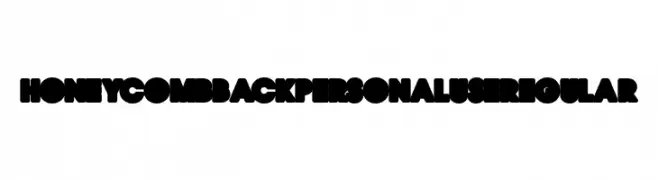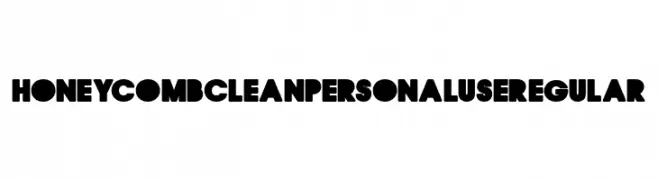
( Fonts by Billy Argel )
A bold, rounded font with a playful and retro-modern style.
( Fonts by Billy Argel )
A bold, decorative font with a honeycomb pattern, ideal for striking visual displays.
( Fonts by Billy Argel )
A bold, geometric font with a modern and playful aesthetic, ideal for impactful designs.